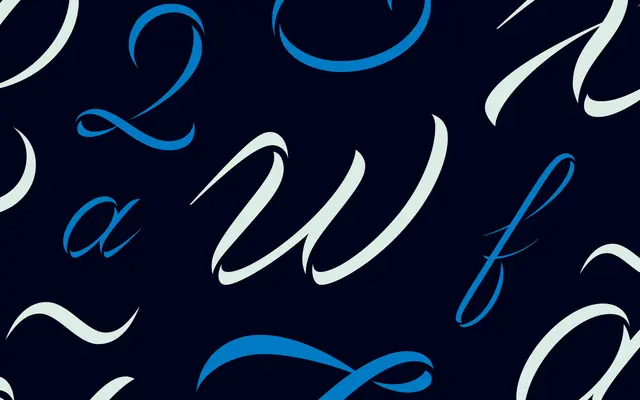
Volina
Dalton Maag · Francesca Bolognini, Selma Losch · 2017
A ribbon-inspired display script by Francesca Bolognini and Selma Losch with generous extenders and a thin negative-space channel that gives a 3D feel.
A display script by Francesca Bolognini and Selma Losch whose forms read as folded ribbons. A single Regular cut carries generous ascenders and descenders, elaborate capitals and a thin channel of negative space that produces a 3D effect across the strokes. The optical rhythm is delicate and sophisticated, suited to fashion, luxury packaging, magazine titling and editorial work that wants a couture script voice.
Dalton Maag describe Volina as an enchanting script with generous ascenders and descenders and elaborate capitals, inspired by the movement of ribbons, with a 3D effect drawn from a thin channel of negative space that produces a captivating optical rhythm and a sophisticated, delicate feel.